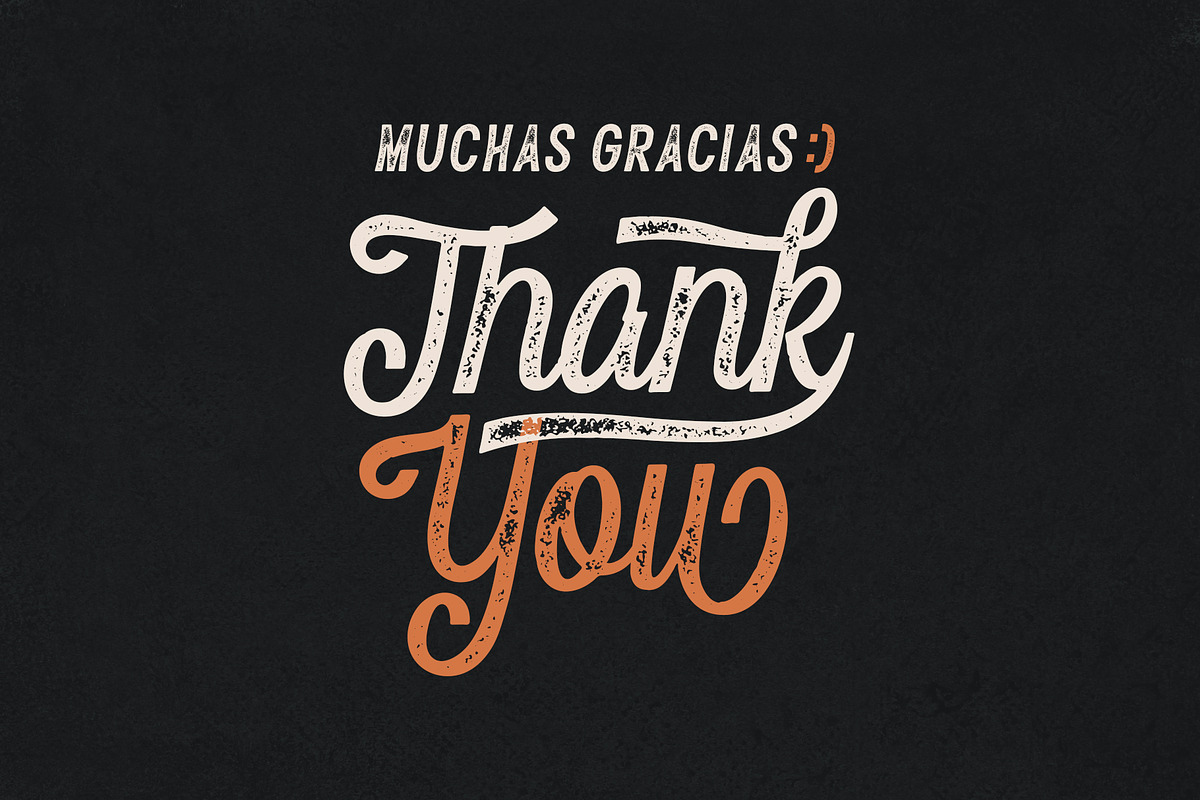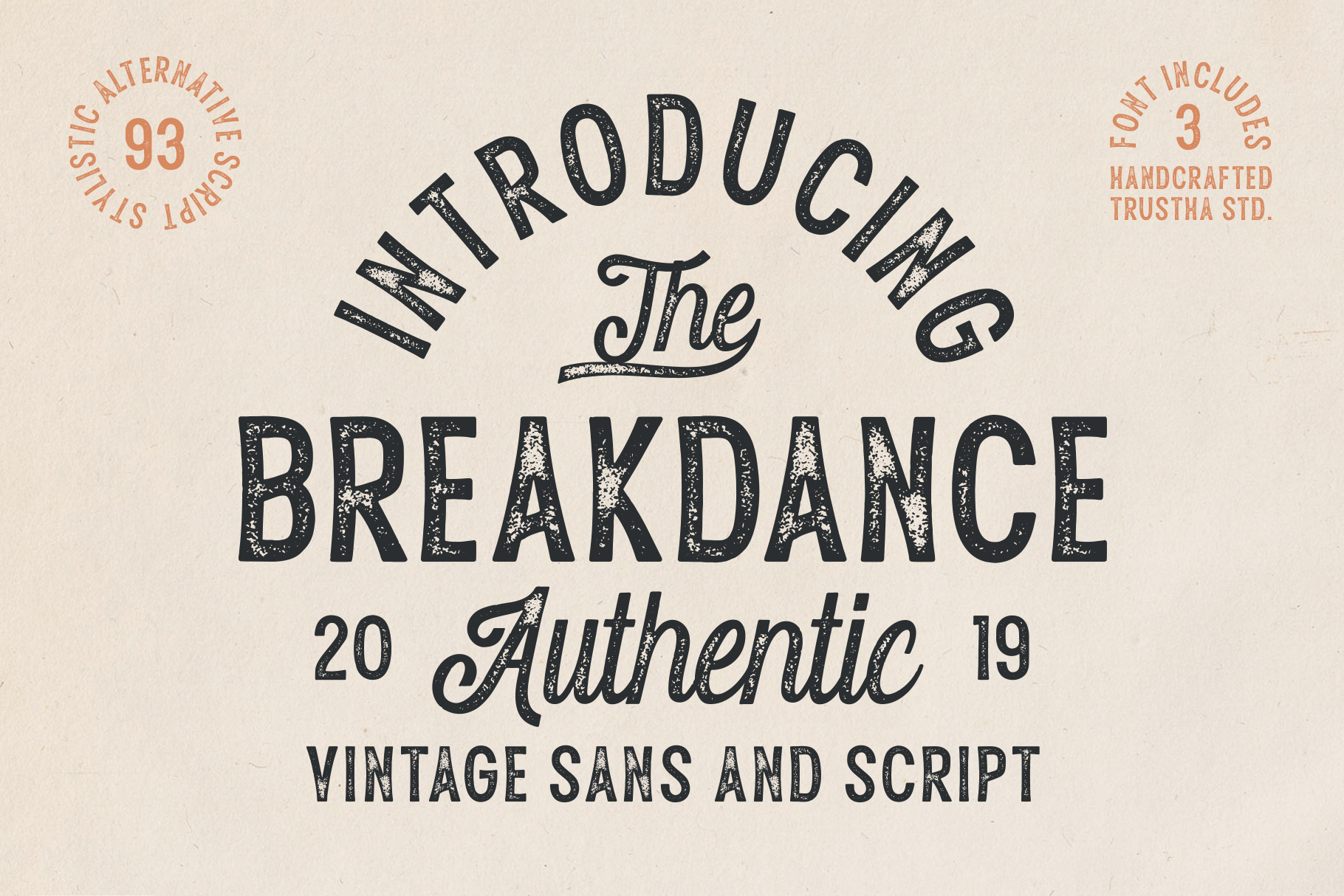
Breakdance Vintage Font
Breakdance is a vintage font duo. Combination of sans and script with sharp textures making all your creative projects get a vintage and authentic impresion!